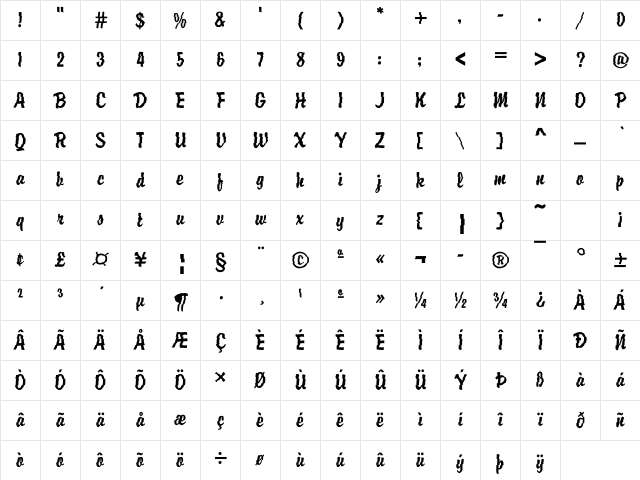
Complete Brody43 Becker Regular glyph index. Displaying only characters natively supported by Brody43 Becker Regular font.
Brody43 Becker is a composed and adaptable typeface that performs quietly and consistently across a wide range of design contexts.